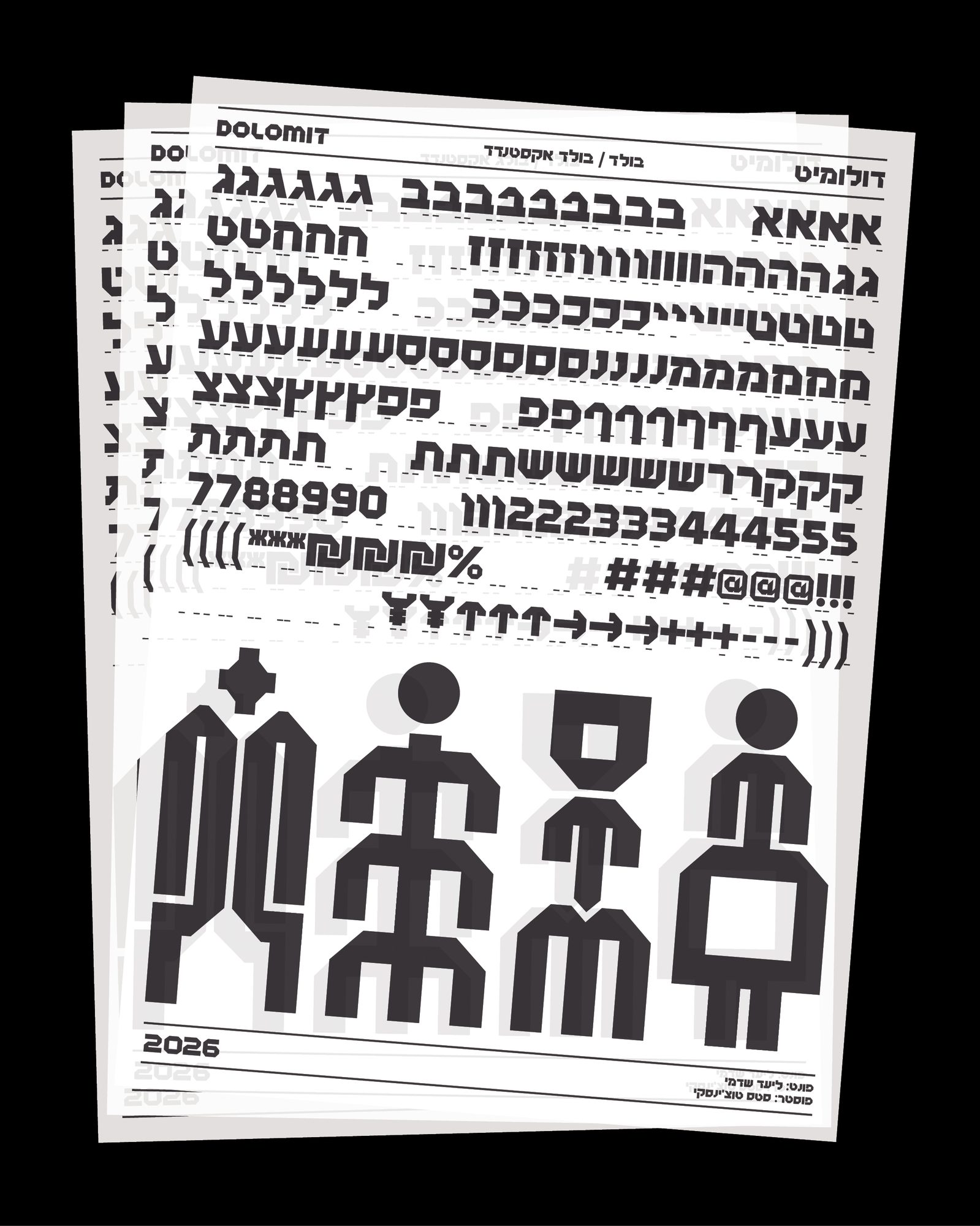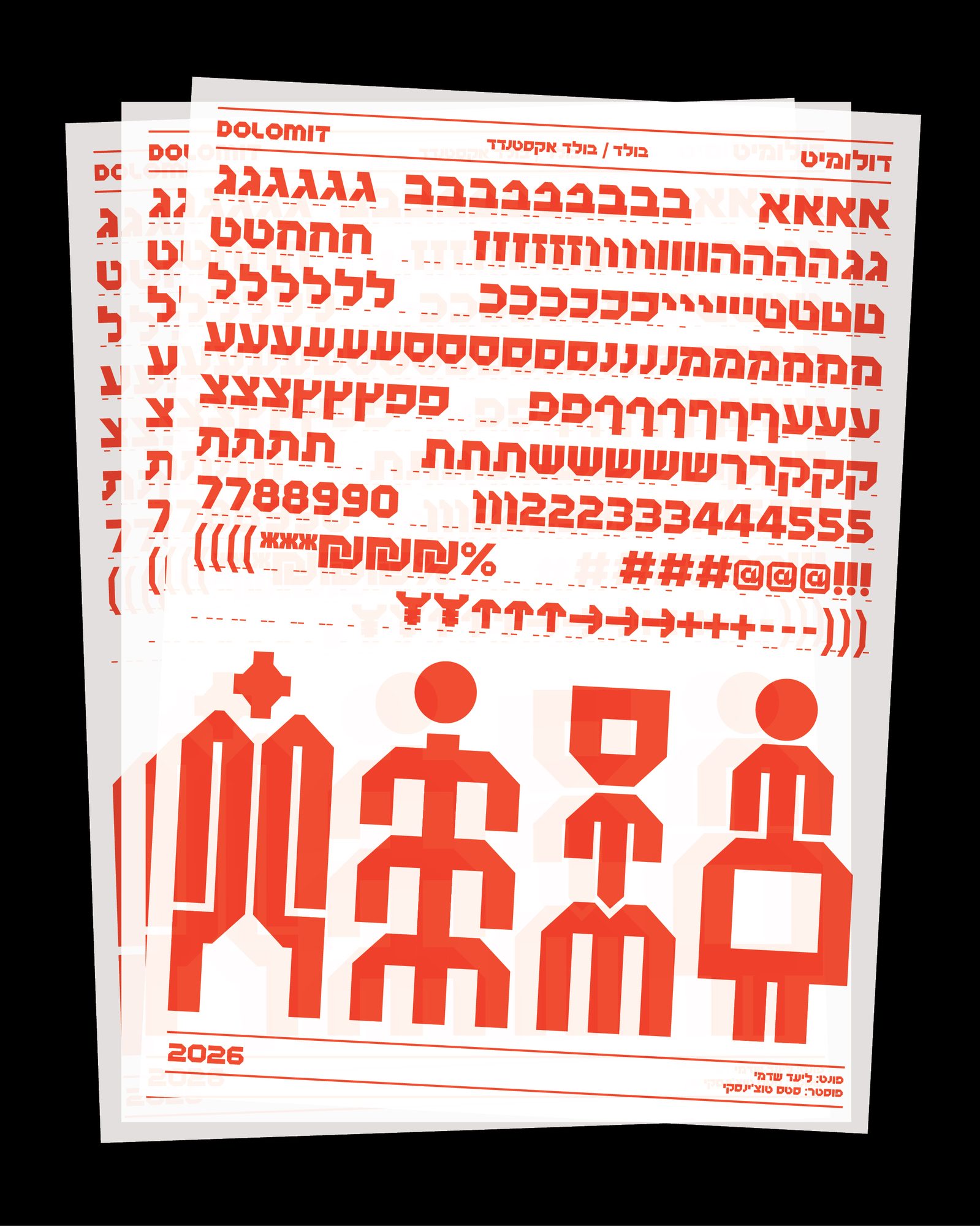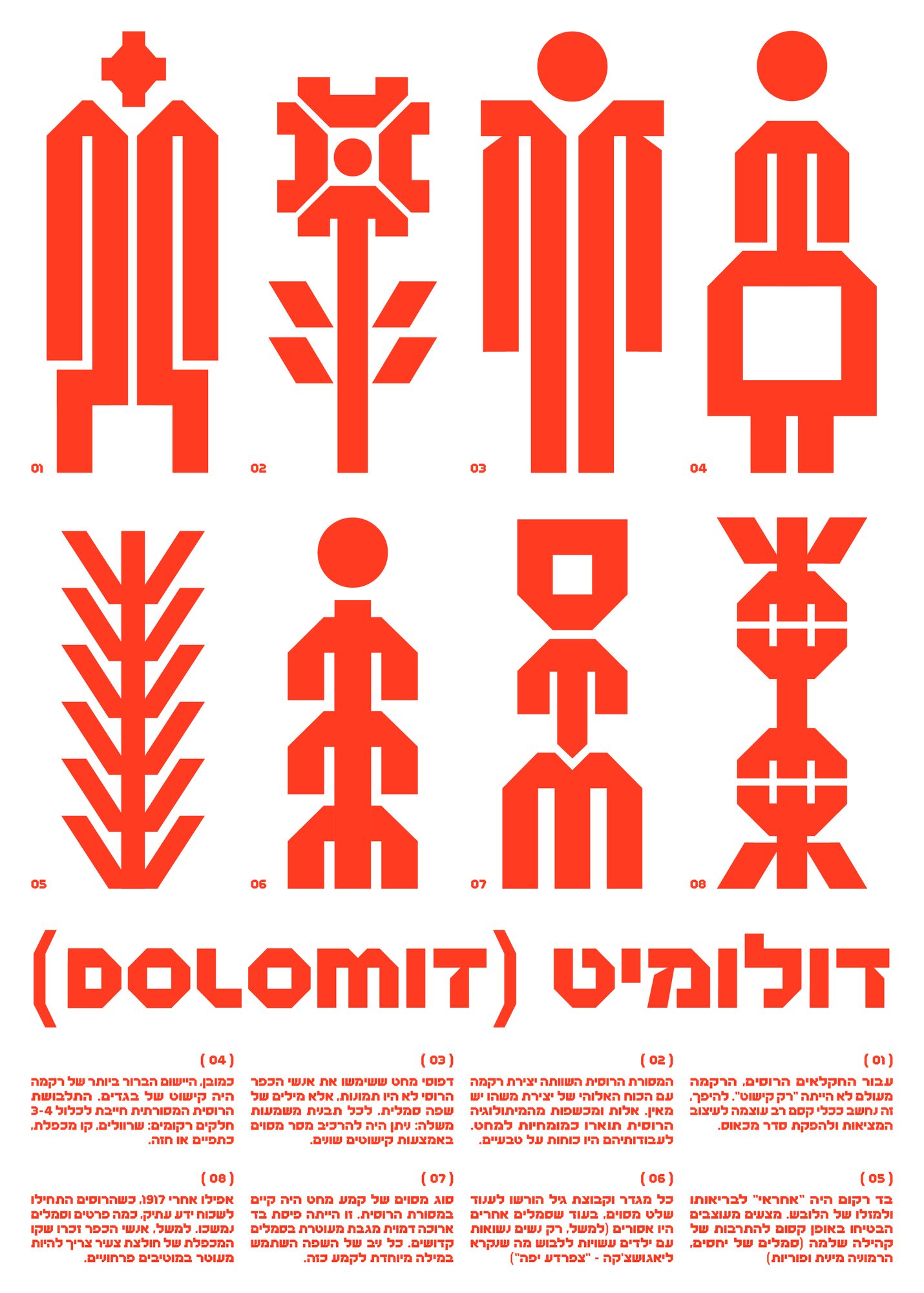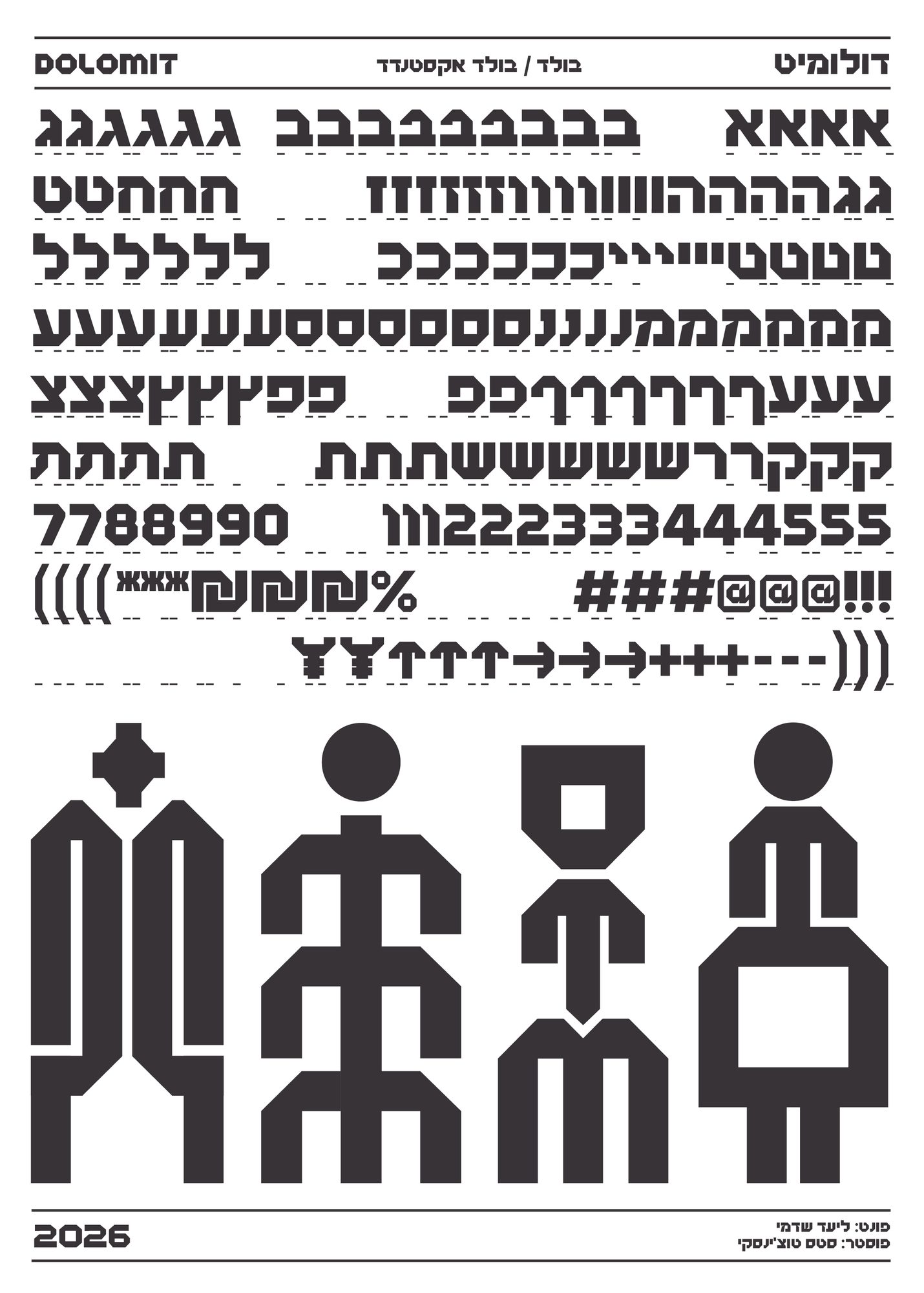
Dolomit דולומיט, a geometric Hebrew display typeface with Latin caps in Bold and Bold Extended, designed by Liad Shadmi and published by Nomad Type
Dolomit is a geometric display typeface, drawn as a modern alternative to Haim, the classic Hebrew headline letter shaped in early 20th-century Eastern Europe under the influence of the Bauhaus. It stays true to Haim's sans serif, geometric and constructivist character, and brings a new attitude to it. A second source is Alon, known today as Sela Atzil, which Shmuel Sela designed for Letraset, with curved terminals borrowed from American varsity lettering. Dolomit folds those curves into sharp paper corners, and a nod to Wim Crouwel's New Alphabet gives it a futuristic edge.
Typeface: Dolomit דולומיט
Designed by: Liad Shadmi
Year: 2026
Languages: Hebrew, Latin (all caps)
פונט דולומיט הוא פונט כותרת גיאומטרי, שעוצב בהשראת מספר מקורות. לדוגמה, האות חיים הקאנונית, המשמשת עד היום כפונט כותרת שכיח בשפה העברית. פונט חיים עוצב בתחילת המאה ה־20 במזרח אירופה, בהשראת תנועת הבאוהאוס, והביא עמו רוח מודרניסטית חדשה לאות העברית. טיפוס האות דולומיט עוצב כתחליף מודרני לאות הקלאסית חיים, ושואב ממנה השראה. הוא נשאר נאמן למאפייניו הסנס־סריפיים, הגיאומטריים והקונסטרוקטיביסטיים, אך מביא גישה חדשנית ושונה לאות. השראה נוספת לעיצוב דולומיט היא טיפוס האות ״אלון״, או בשמו המודרני ״סלע אציל״, שעוצב עבור קטלוג אותיות לטרסט על ידי מעצב הפונטים שמואל סלע. פונט דולומיט מהווה וריאציה מודרנית בהשראתו, עם קימורים חדים יותר בקצוות האותיות, המושפעים מקיפולי נייר, ומקנים לאות תחושה מודרנית יותר.
DOLOMIT STARTS FROM HAIM, THE HEBREW HEADLINE LETTER SHAPED BY THE BAUHAUS IN EARLY 20TH-CENTURY EASTERN EUROPE. NOBODY KNOWS FOR SURE WHO DREW IT. SOME SAY JAN LE WITT, OTHERS PESACH IR-SHAY, AND THE POET BIALIK ENCOURAGED IT UNTIL IT CARRIED HIS NAME. DOLOMIT PICKS UP SHMUEL SELA'S ALON FROM THE LETRASET YEARS, WITH ITS HEAVY VARSITY CURVES, FOLDS THOSE CURVES INTO SHARP PAPER CORNERS AND BORROWS A FUTURE FROM WIM CROUWEL'S NEW ALPHABET. TWO WIDTHS, BOLD AND EXTENDED, WITH ALTERNATES FOR ALMOST EVERY HEBREW LETTER. LOUD ON PURPOSE.
Dolomit דולומיט in Use
Dolomit typeface in use, a stack of black on white specimen posters with the Hebrew alphabet and four large letter figures
Dolomit typeface in use, a stack of red on white specimen posters with the Hebrew alphabet and four large letter figures
Dolomit typeface in use, a still from the Jaffa title sequence with the Hebrew word Jaffa torn along a ridge, the lower half dropped away in white on black
Specimen
Red Dolomit poster with eight figures built from Hebrew letterforms, the name (DOLOMIT) דולומיט and eight numbered Hebrew text blocks
Black and white Dolomit specimen poster showing the Hebrew alphabet, figures and symbols in Bold and Bold Extended, four large letter figures and the year 2026
Dolomit: geometric Hebrew headlines with folded corners
A modern alternative to the classic Haim letter, with sharp corners inspired by paper folds. Two styles, Bold and Bold Extended, with alternates for almost every Hebrew letter and Latin in caps.